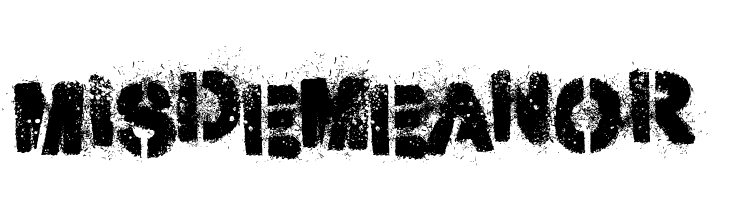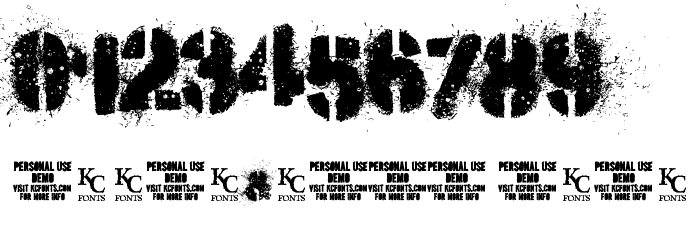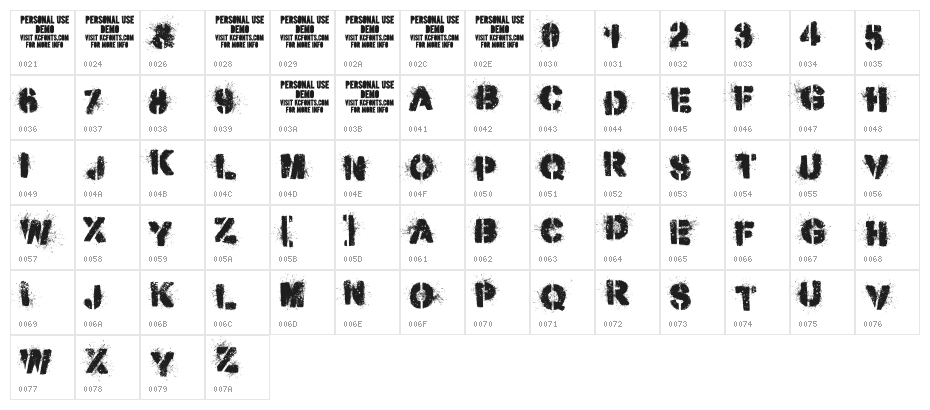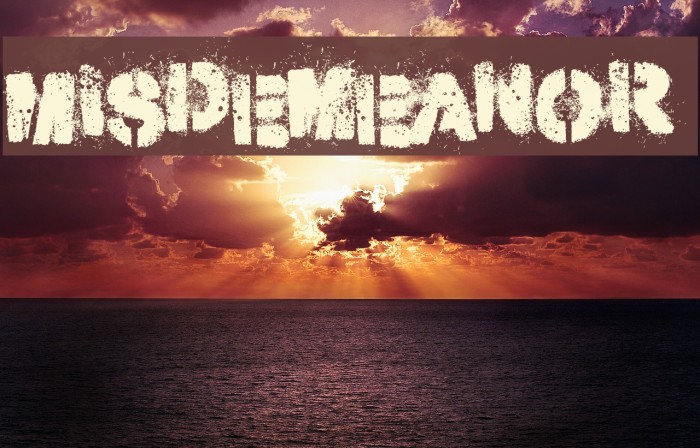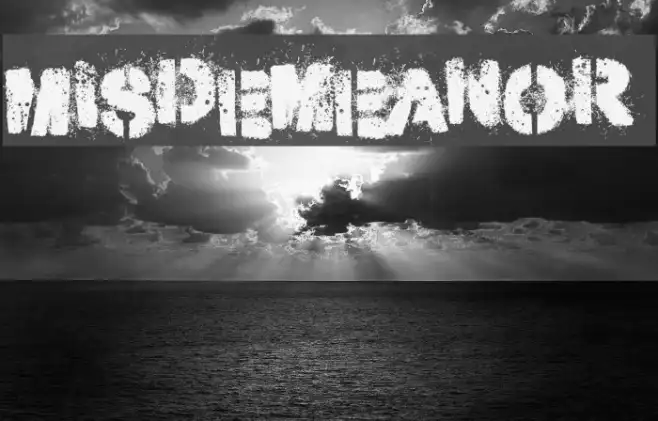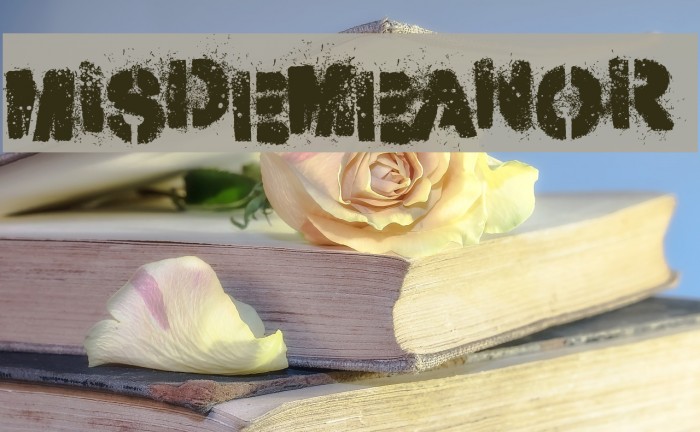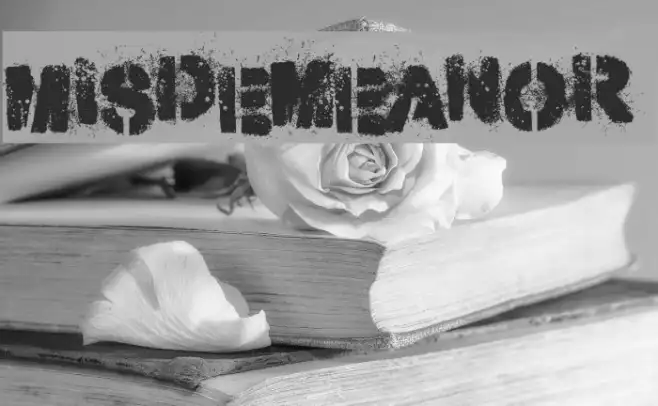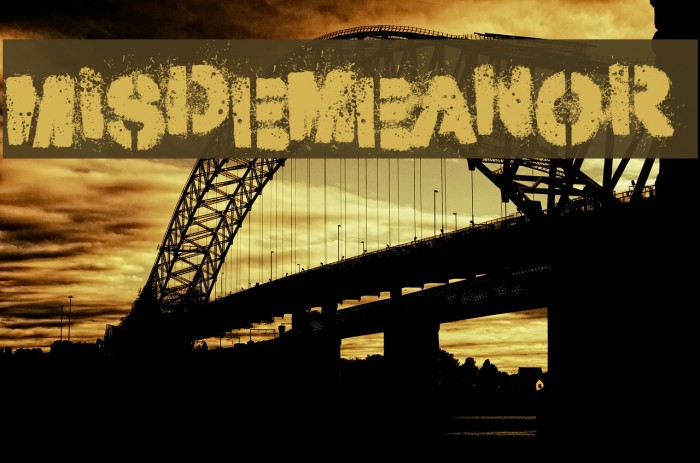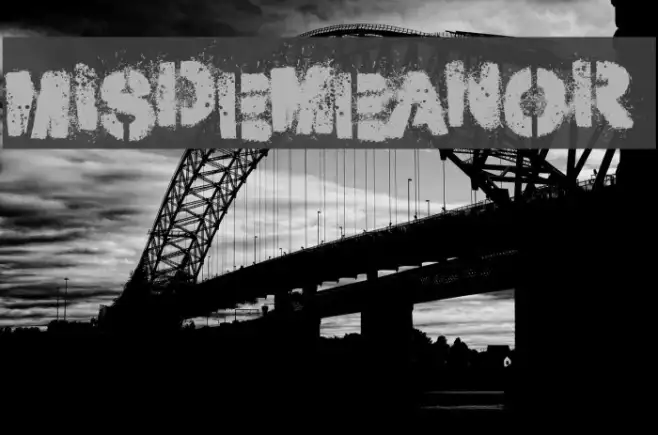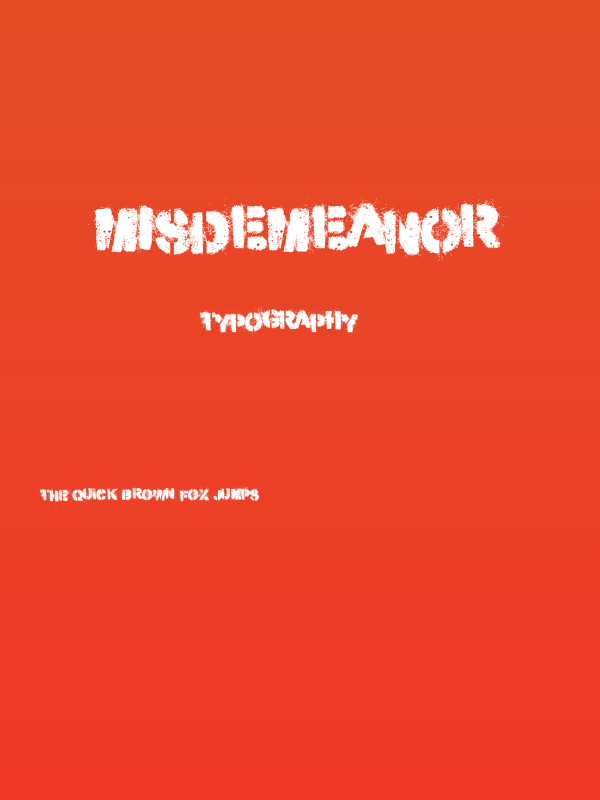
Misdemeanor Font
Misdemeanor Description
This font features a bold, distressed style with a spray-painted effect, giving it a gritty and urban feel. The characters are uppercase and lowercase, with numbers and a selection of special characters. Each letter has a rough, textured appearance, as if created with a stencil and spray paint, adding a sense of movement and energy. The edges are irregular, contributing to the overall rugged aesthetic. This font is ideal for projects that require a raw, edgy look, such as street art-inspired designs or rebellious, counter-culture themes.
| Overall Style | Urban, Edgy, Distressed |
| Use Case | Logos, Posters, Album Covers |
| Proposed Projects | Perfect for street art designs, music album covers, edgy posters, and rebellious branding. |